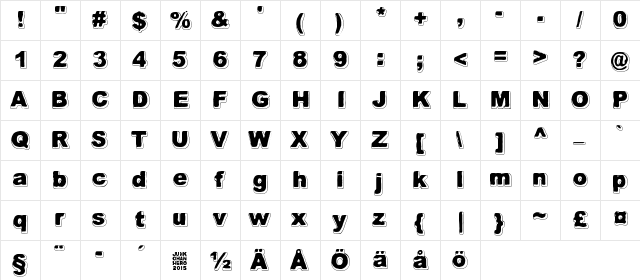
Always Been Right Regular
| Designer | junkohanhero |
Design Context for Always Been Right Typeface
Always Been Right takes a measured approach to typography — its balanced proportions and neutral character make it a reliable workhorse for both digital and print work.